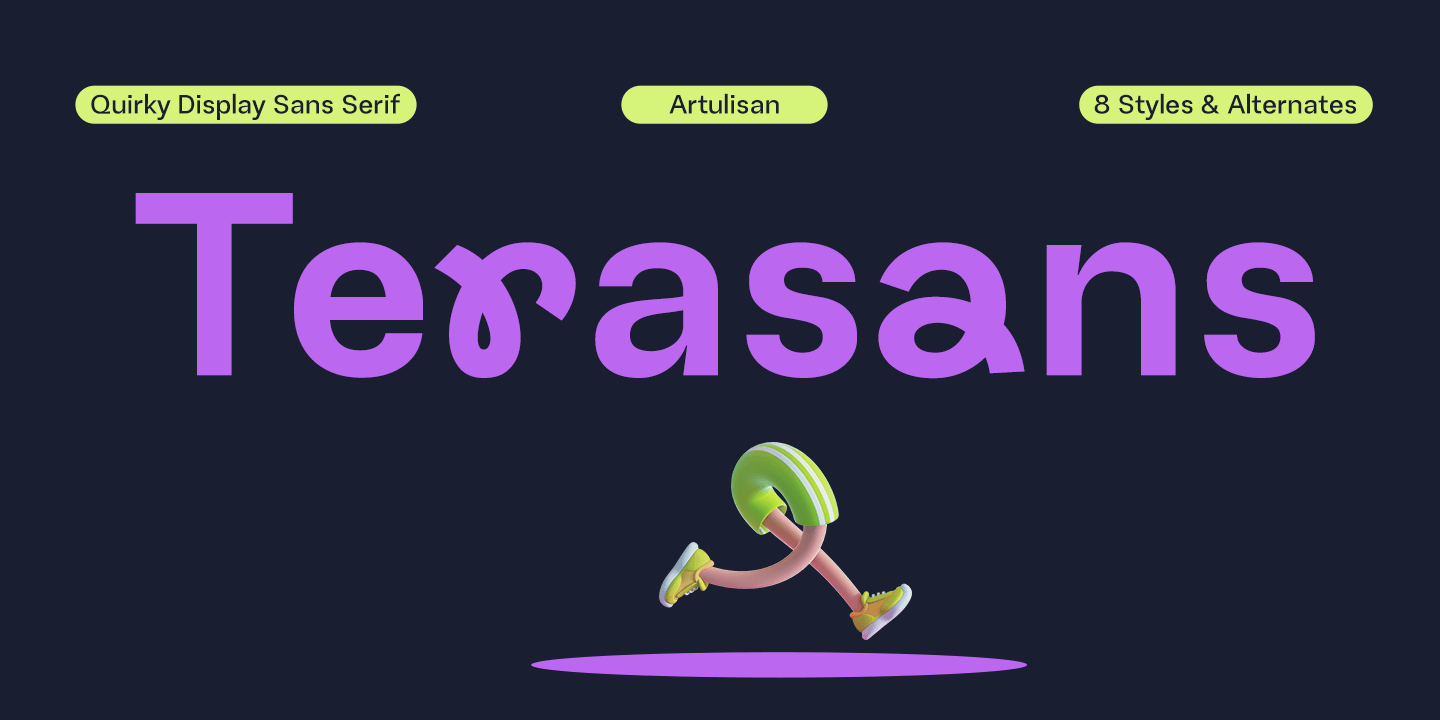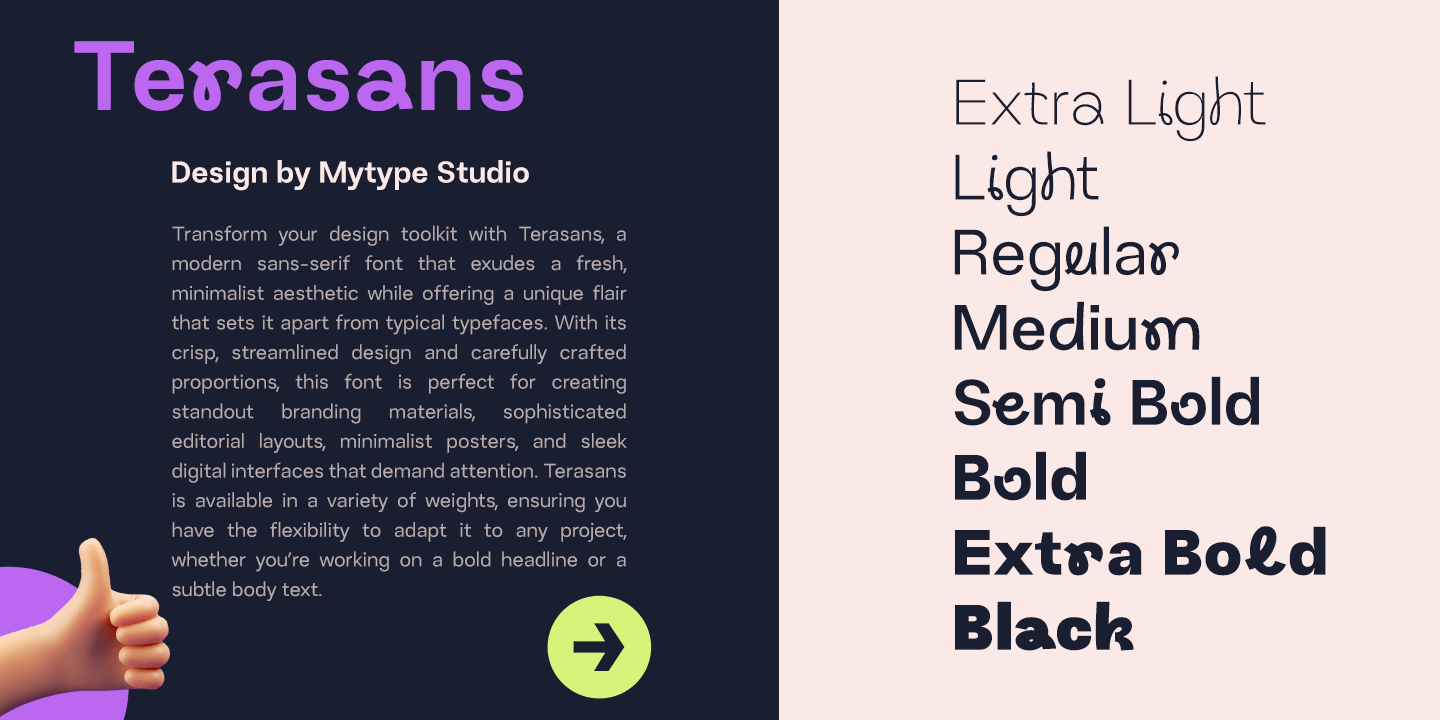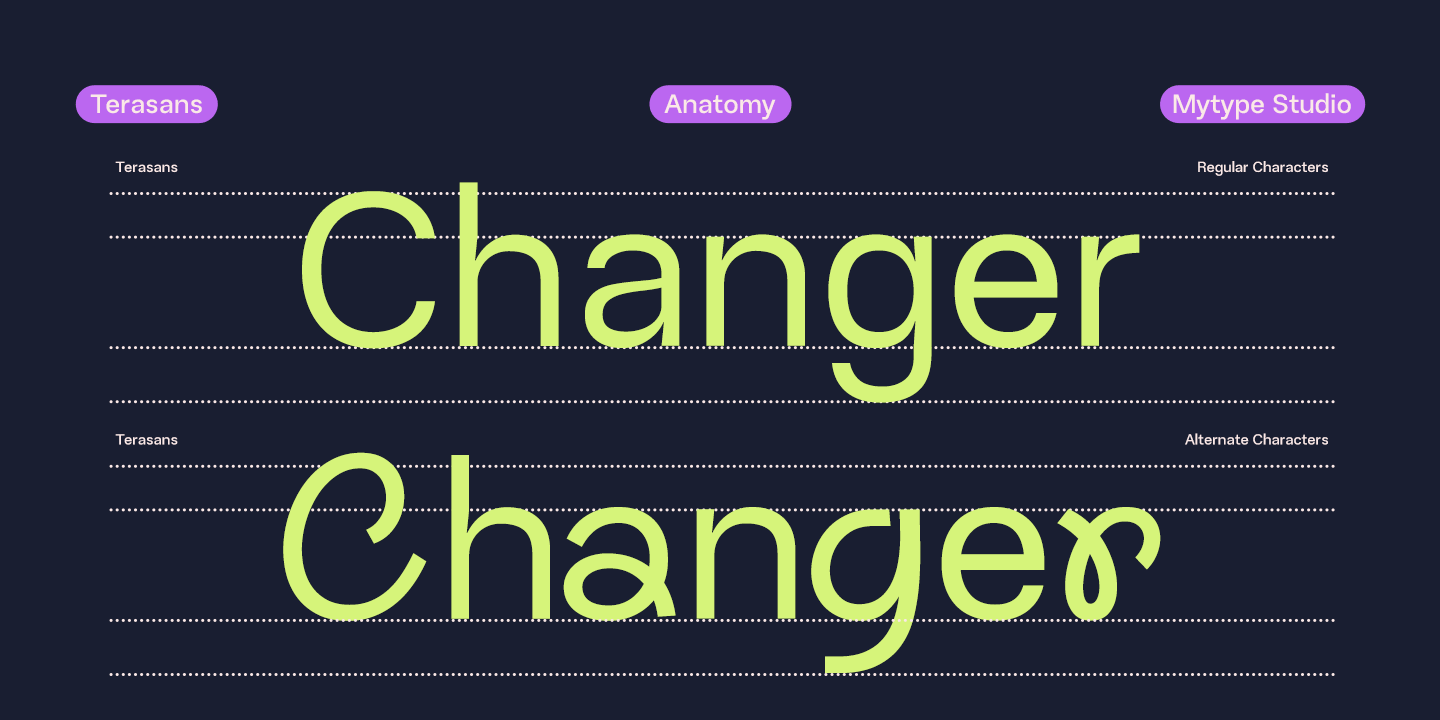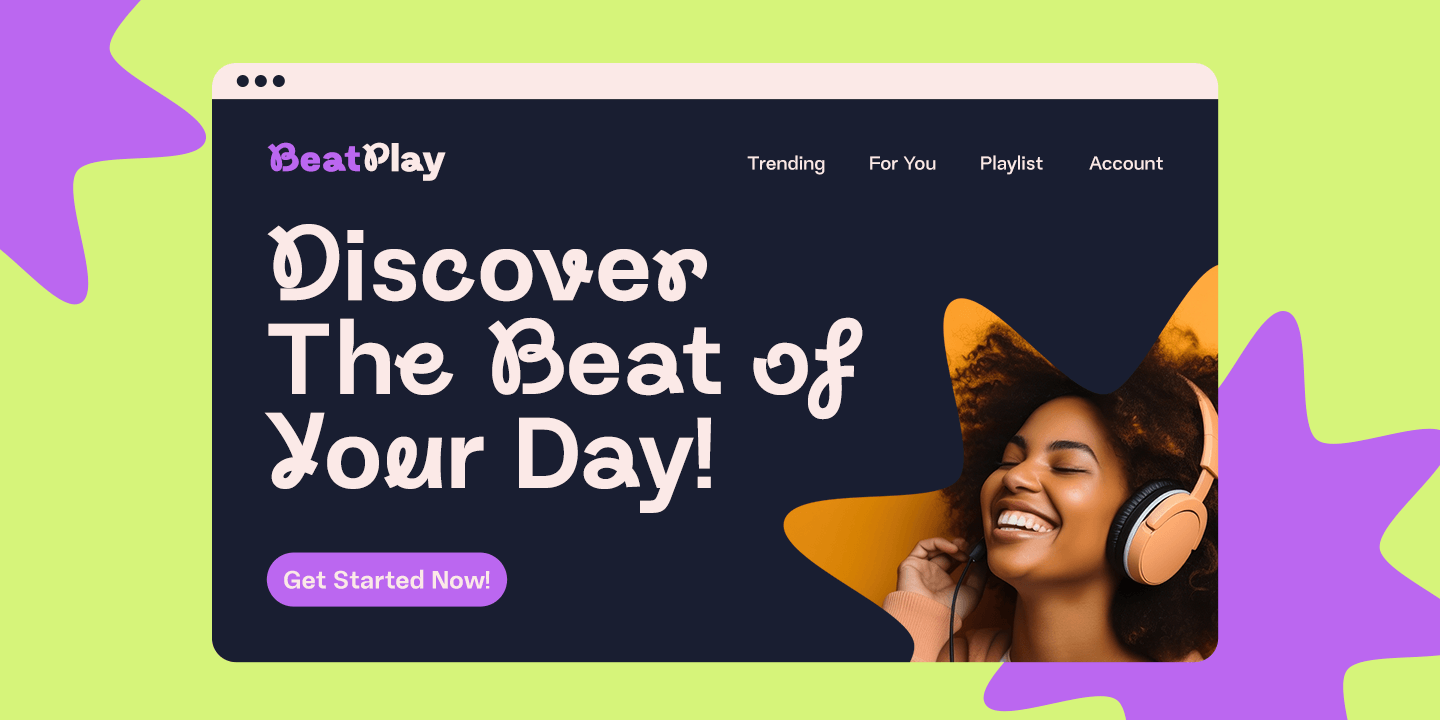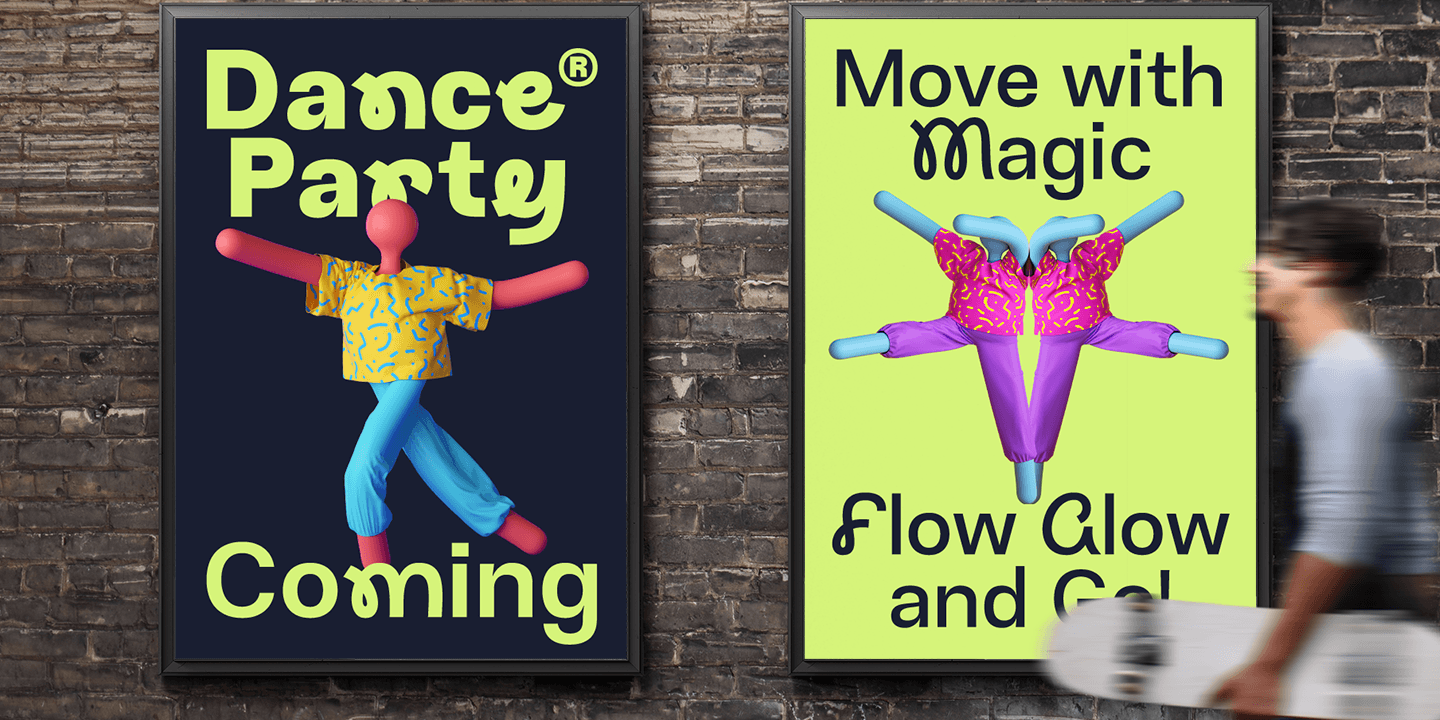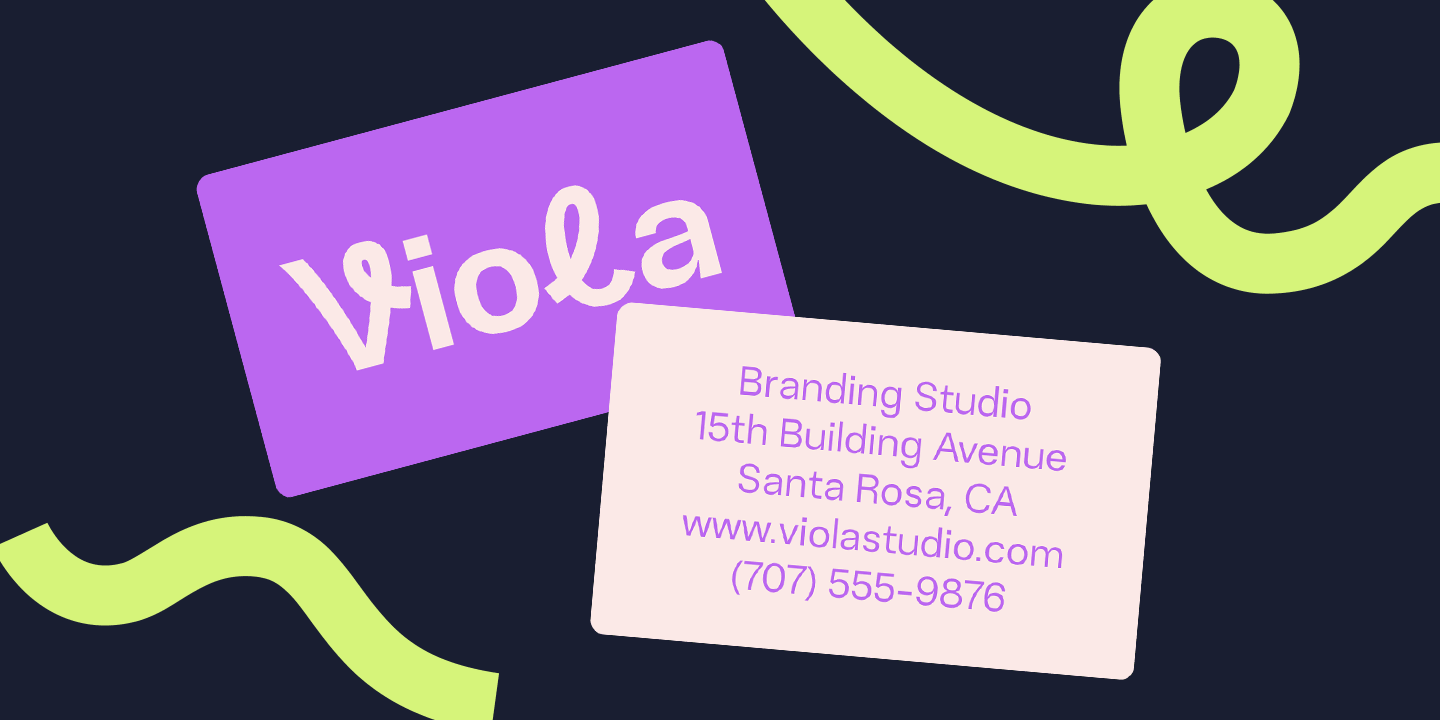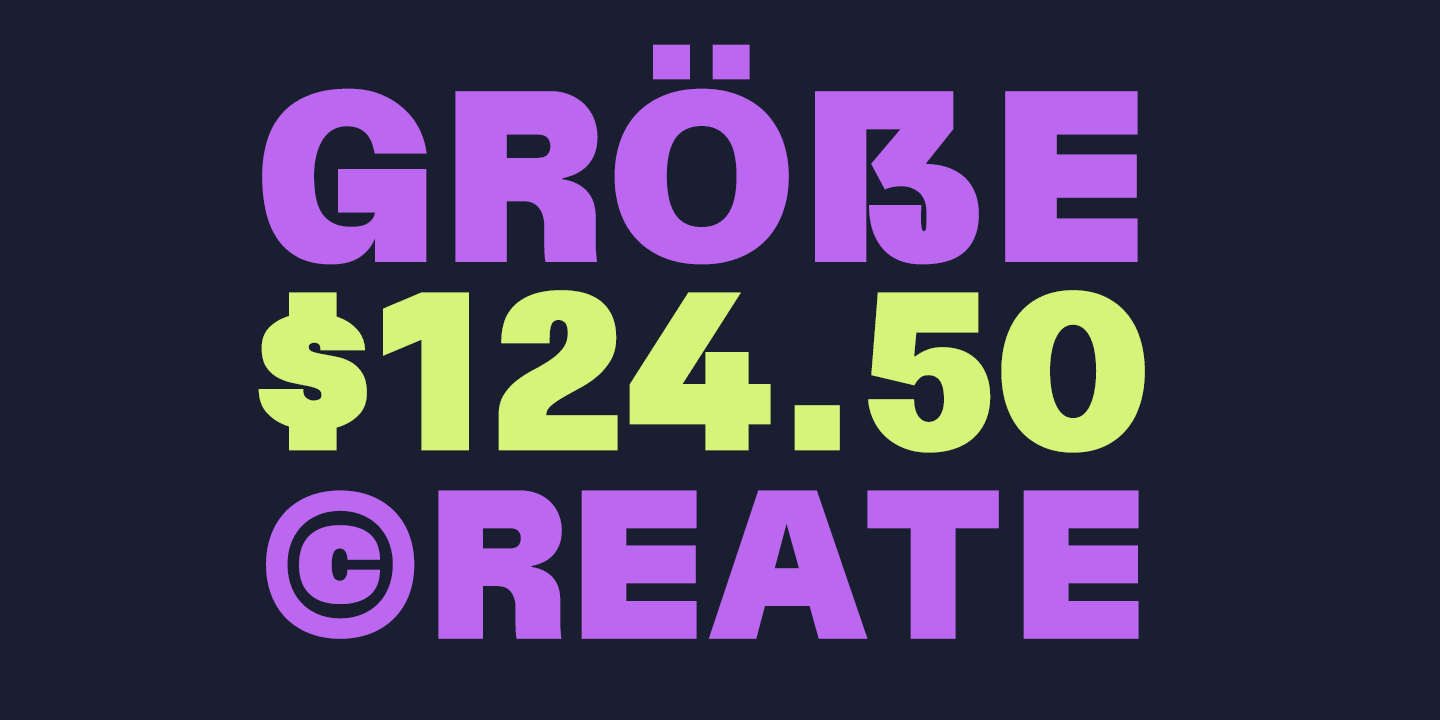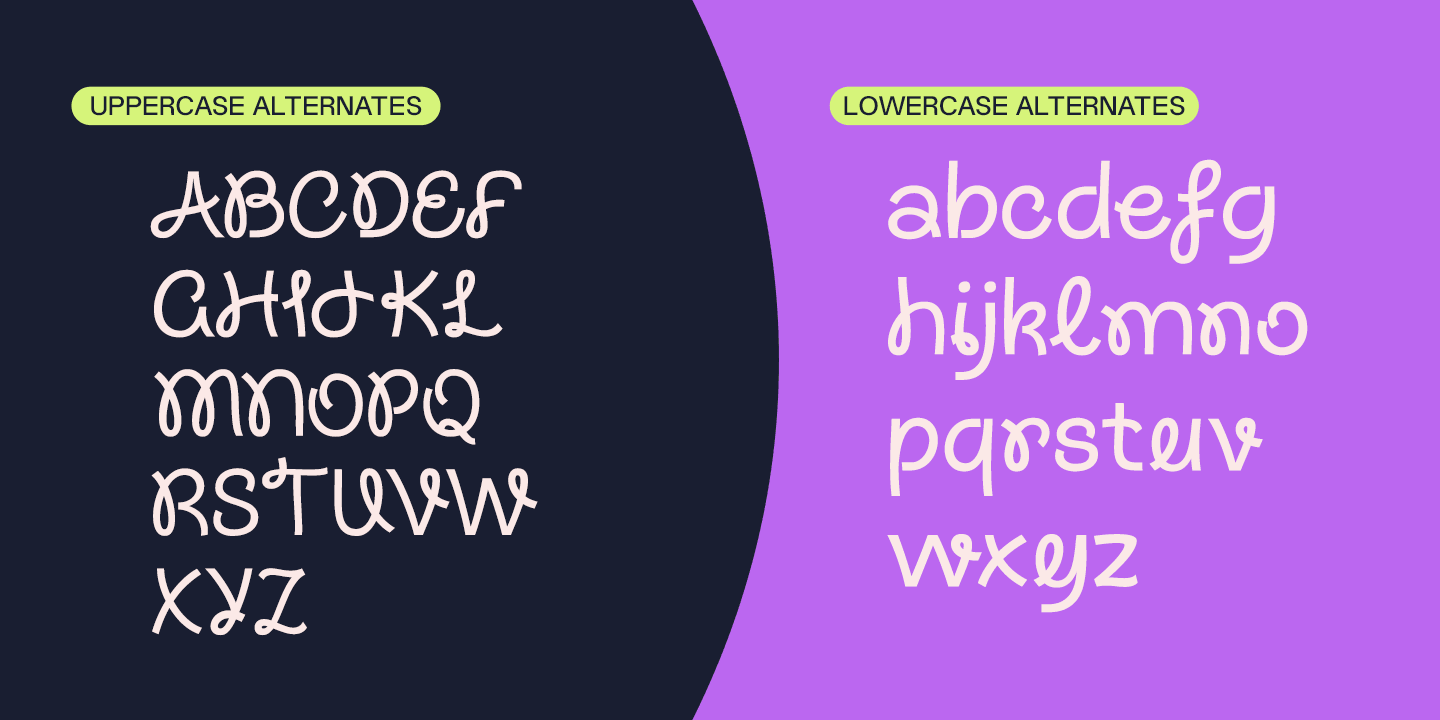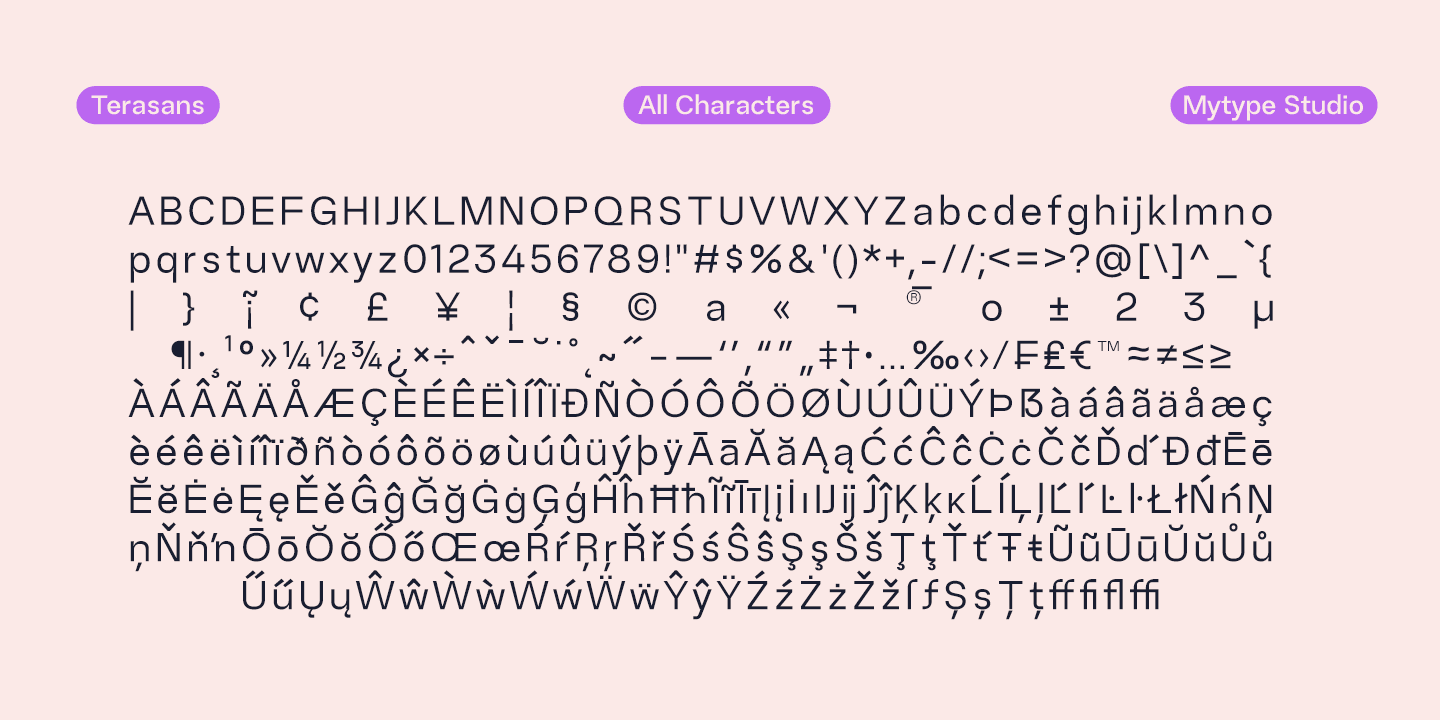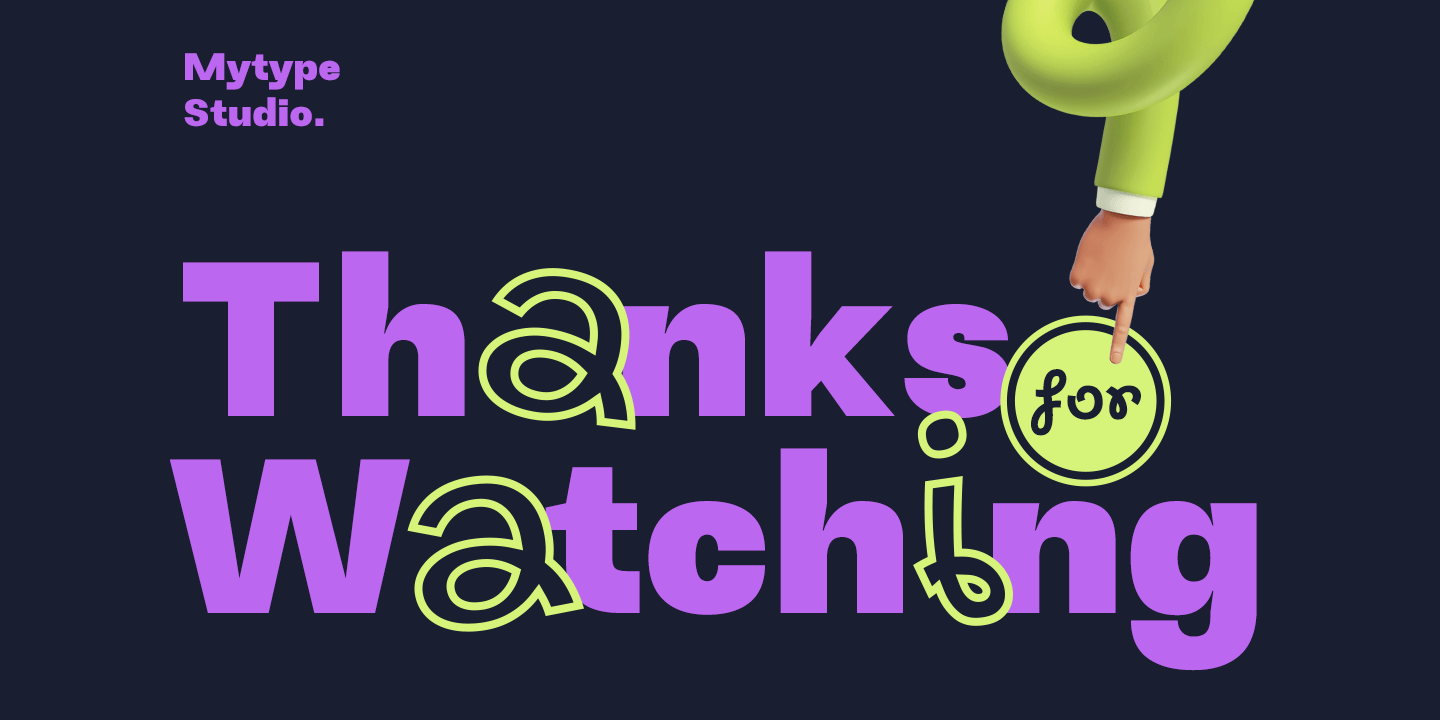
Transform your design toolkit with Terasans, a modern sans-serif font that exudes a fresh, minimalist aesthetic while offering a unique flair that sets it apart from typical typefaces. With its crisp, streamlined design and carefully crafted proportions, this font is perfect for creating standout branding materials, sophisticated editorial layouts, minimalist posters, and sleek digital interfaces that demand attention. Terasans is available in a variety of weights, ensuring you have the flexibility to adapt it to any project, whether you’re working on a bold headline or a subtle body text.